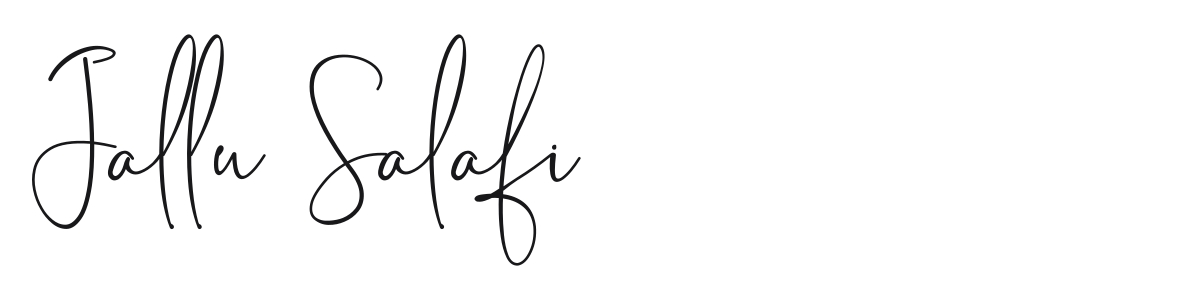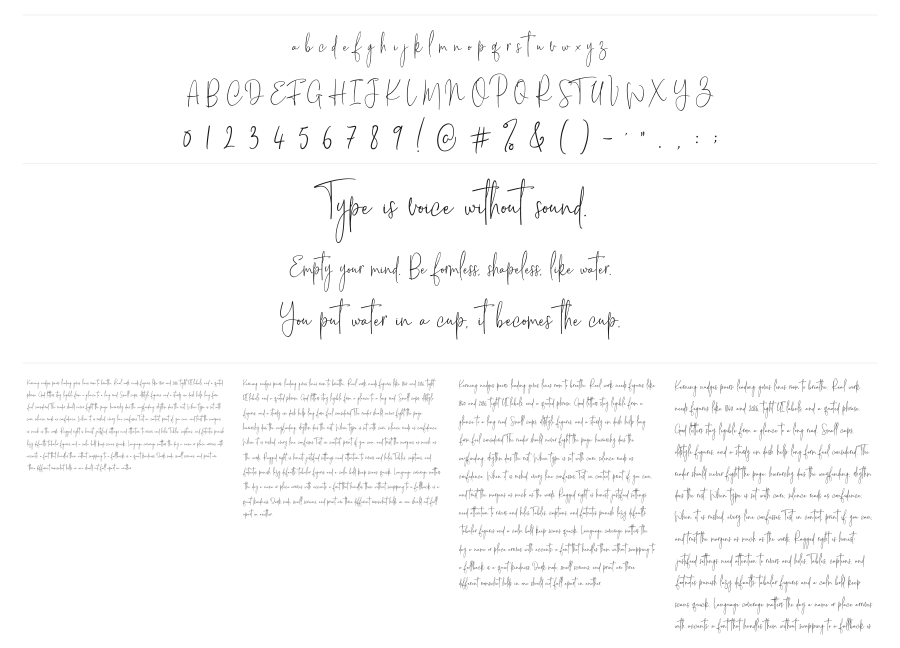
Jallu Salafi
Jallu Salafi is a flowing casual script from Gilar Studio with thin, looping strokes and the loose energy of contemporary hand lettering. Long crossing ascenders and descenders give it an expressive, spontaneous rhythm that suits romantic and lifestyle branding. It carries a light, airy presence at headline sizes.